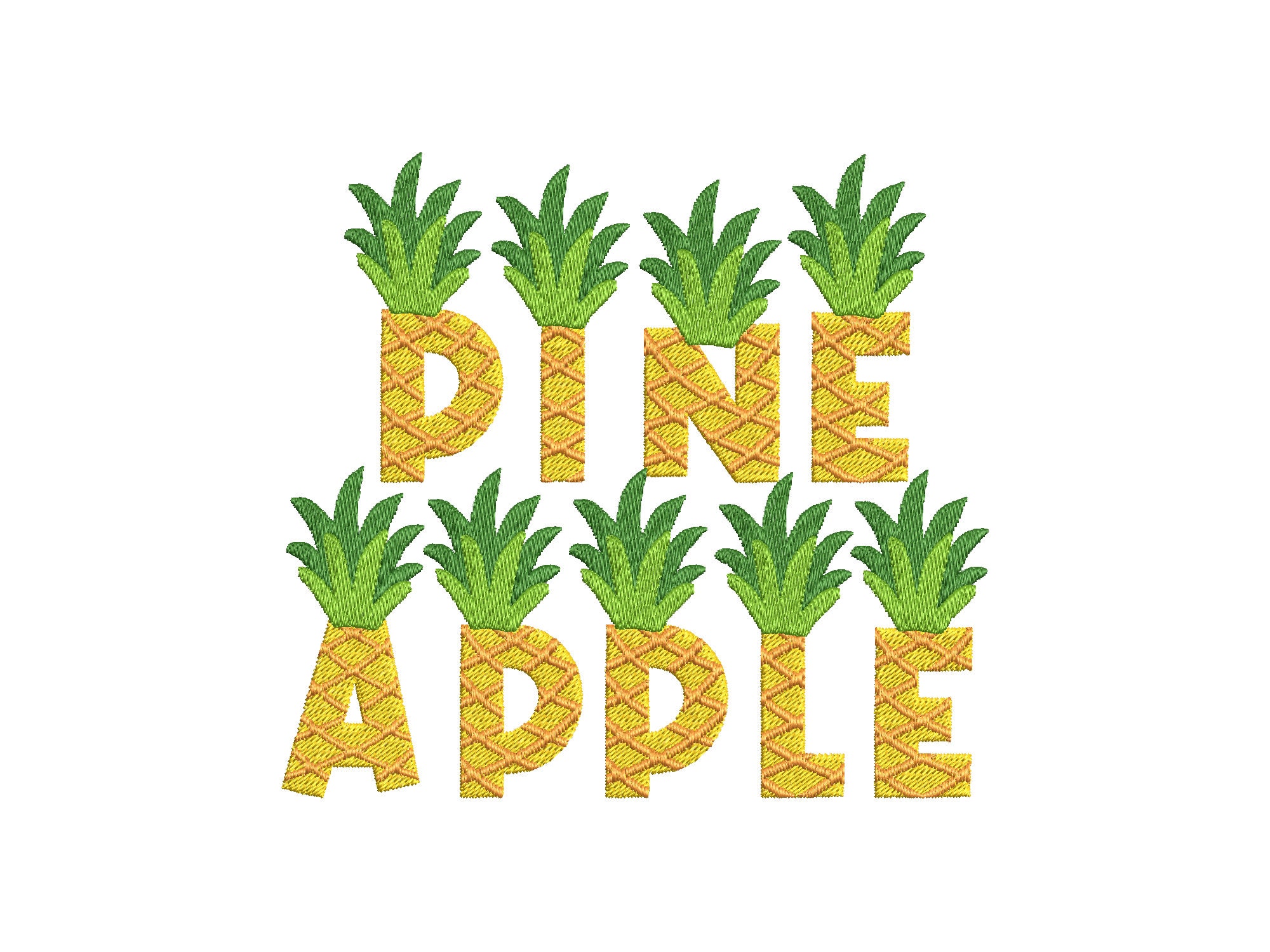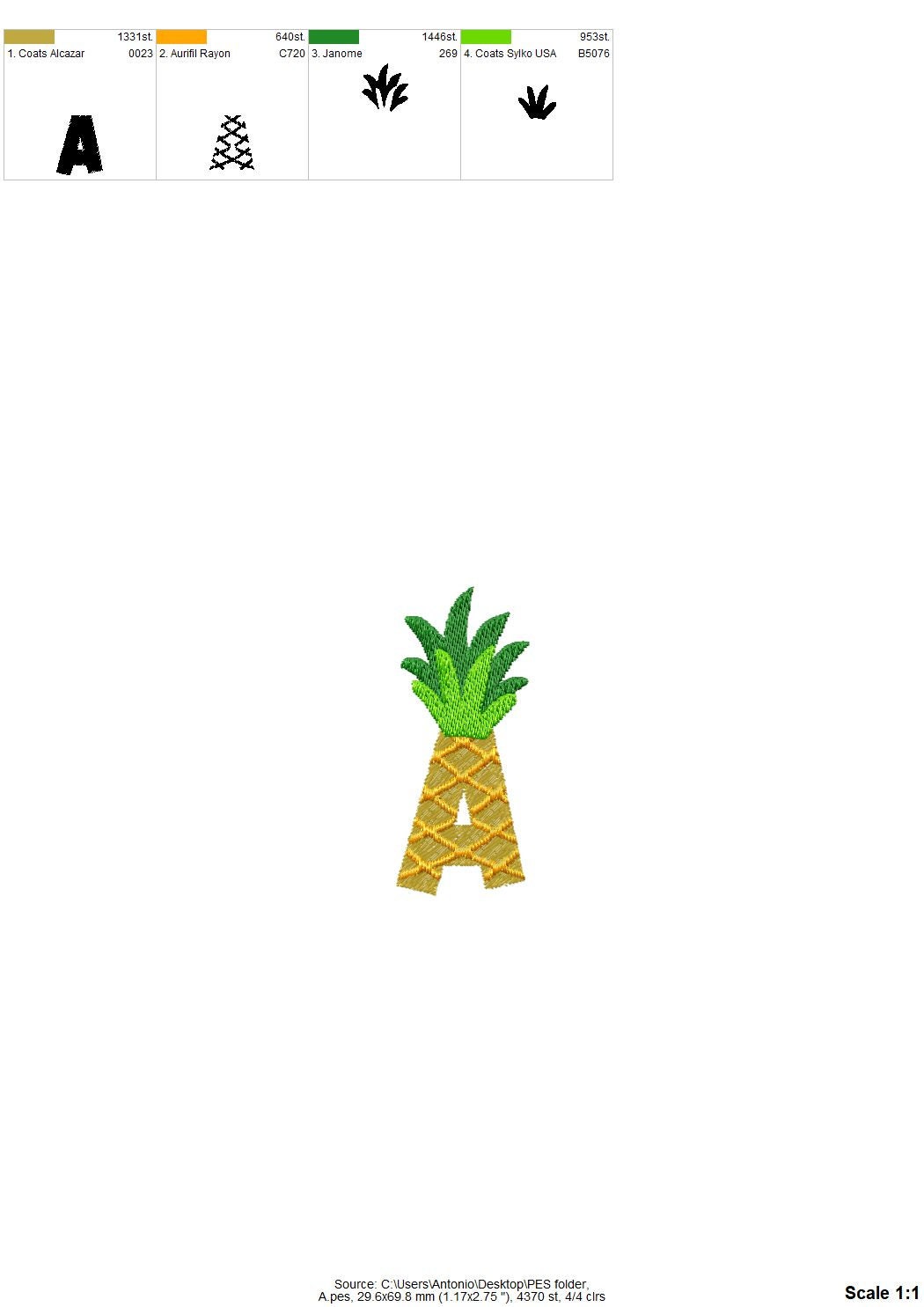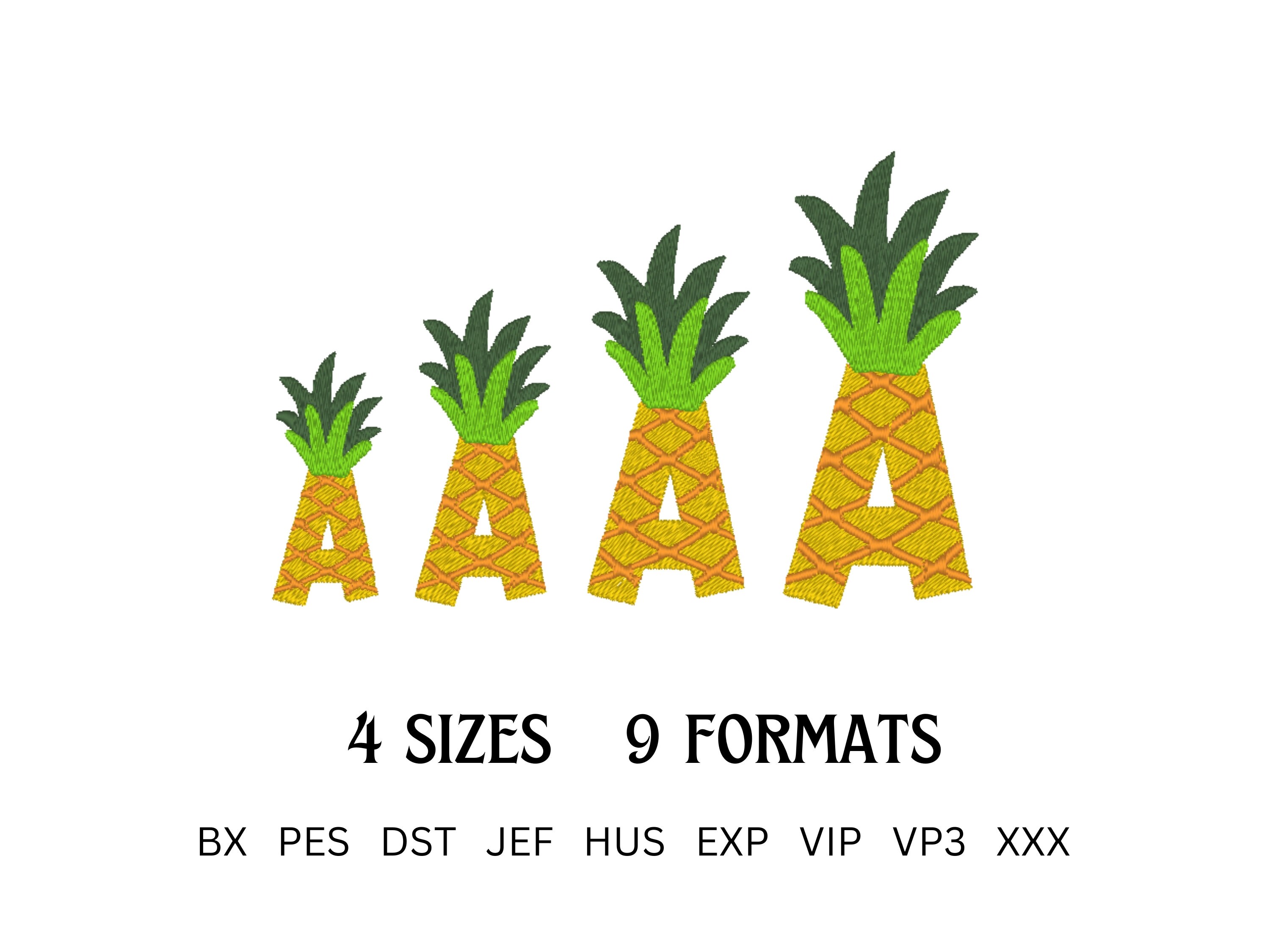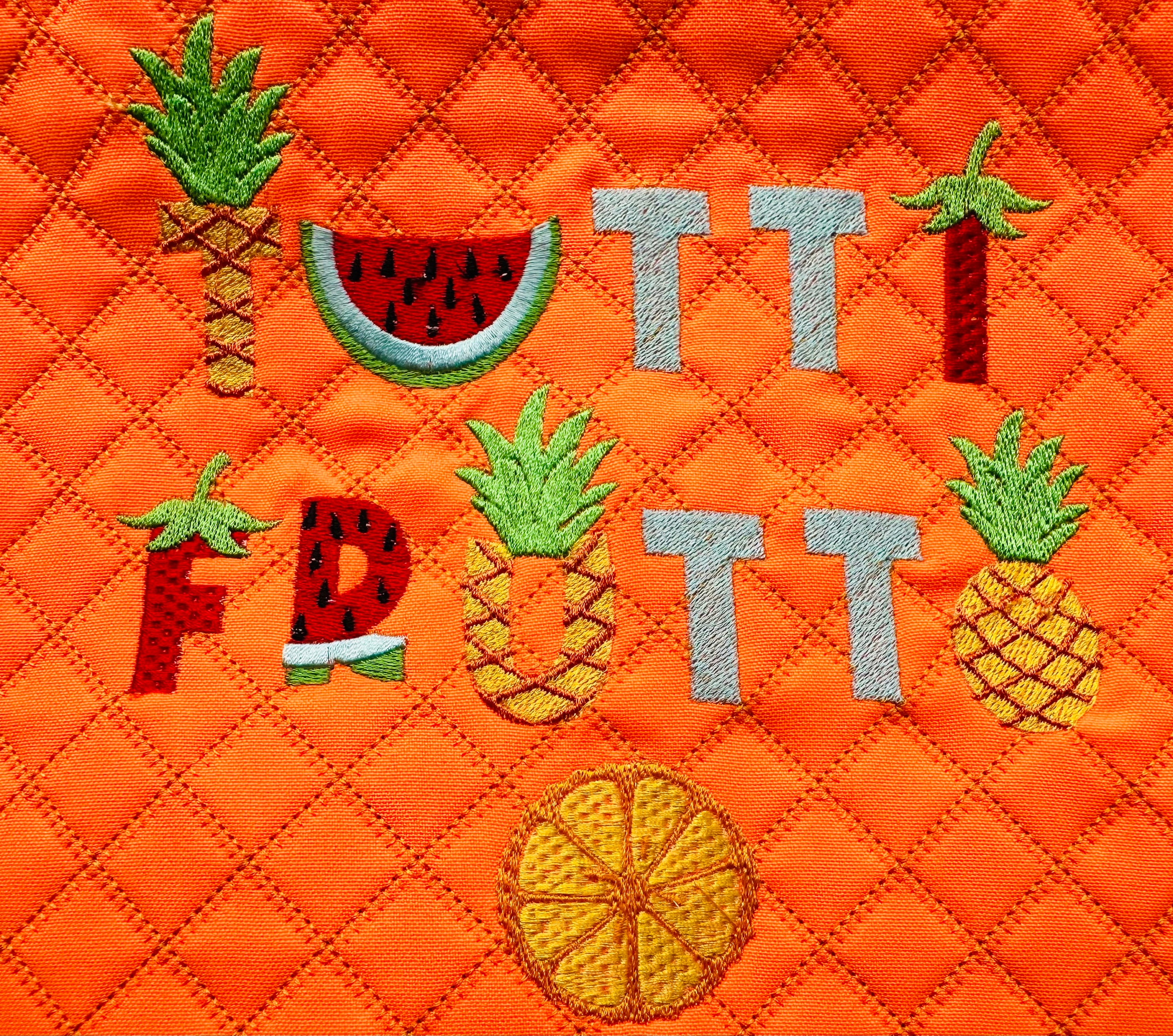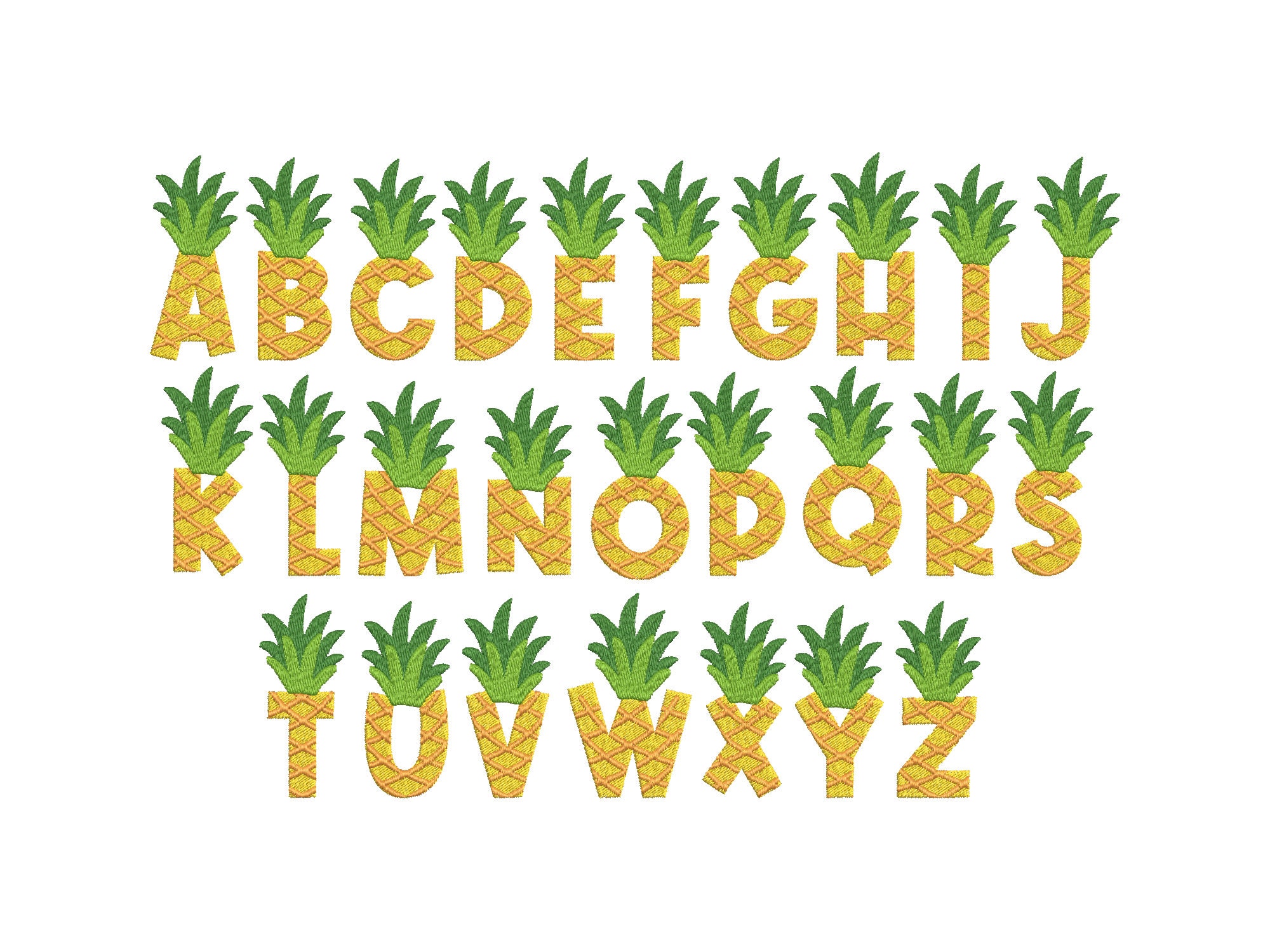
Patterned Pineapple Font Tutti Frutti summer Pineapple alphabet letters monogram machine embroidery designs Fruit Palm Tree Ananas plant
*Please note: the size is for the height of the letters. Actually, the Pineapple letters are a little higher because they have leaves on the top.